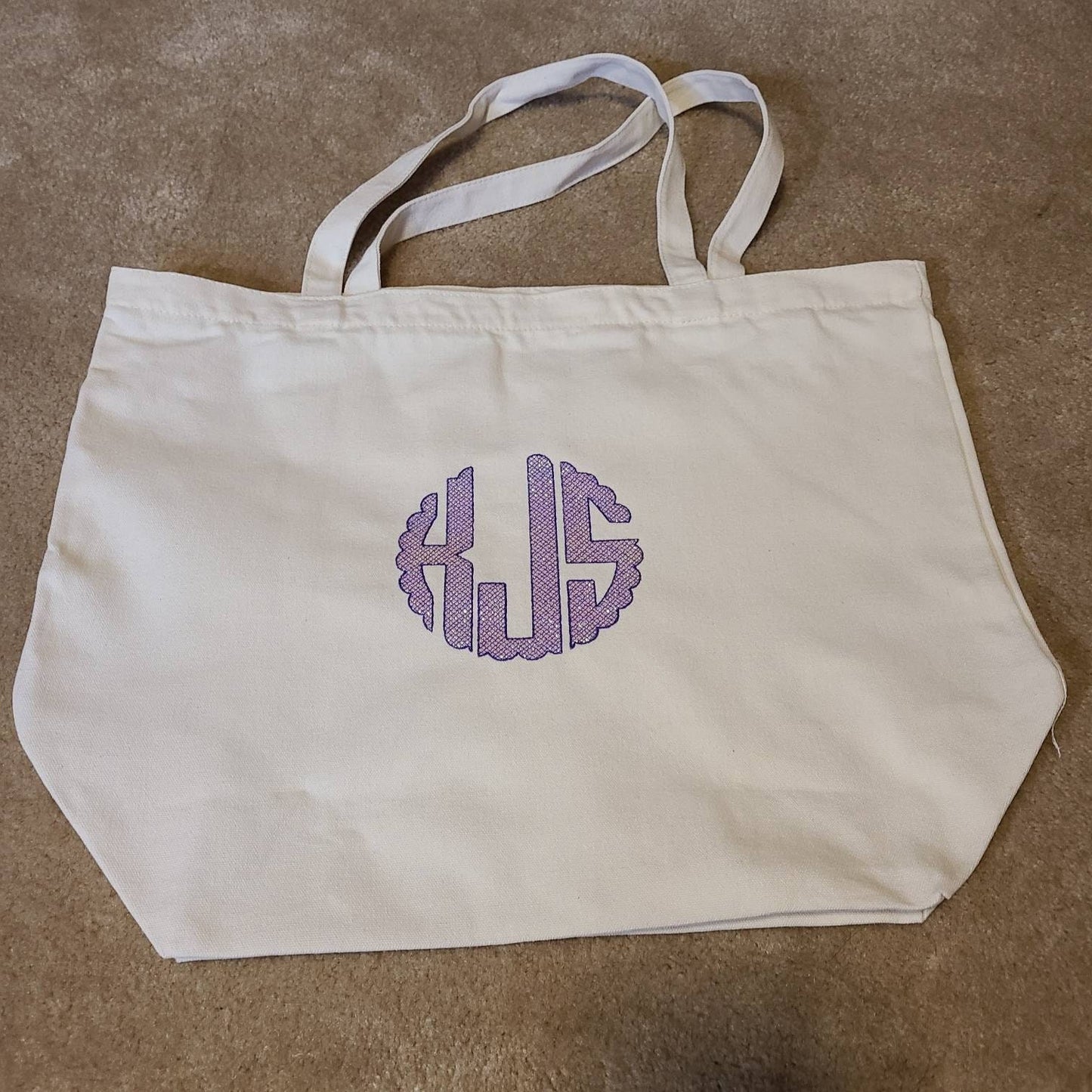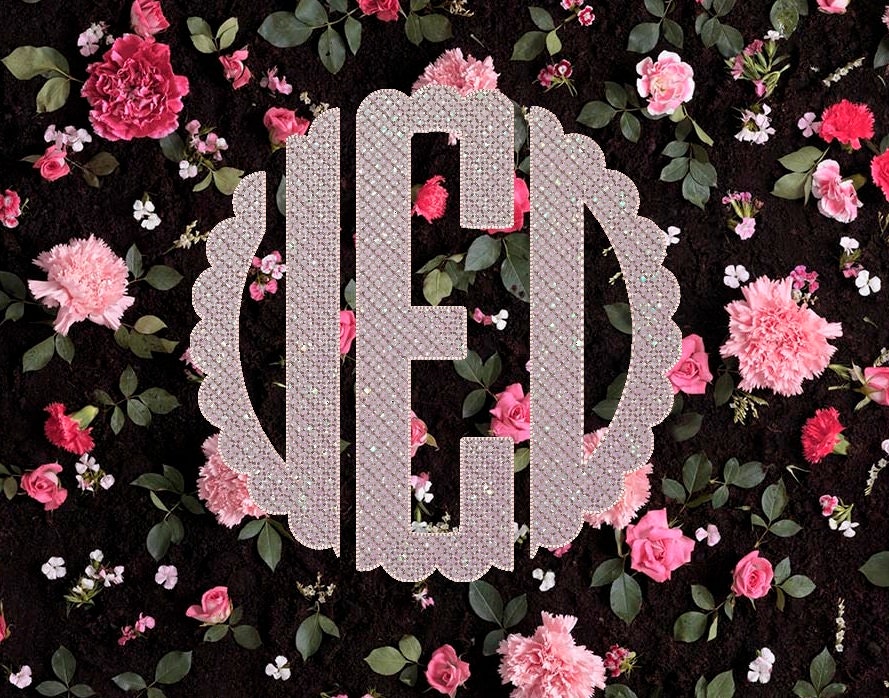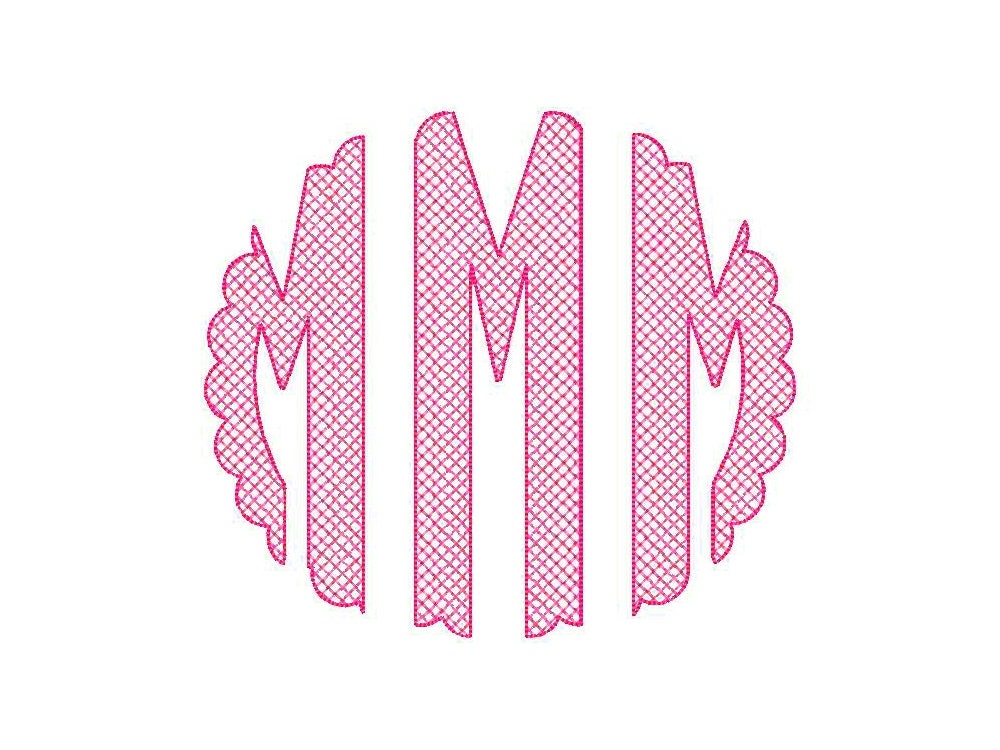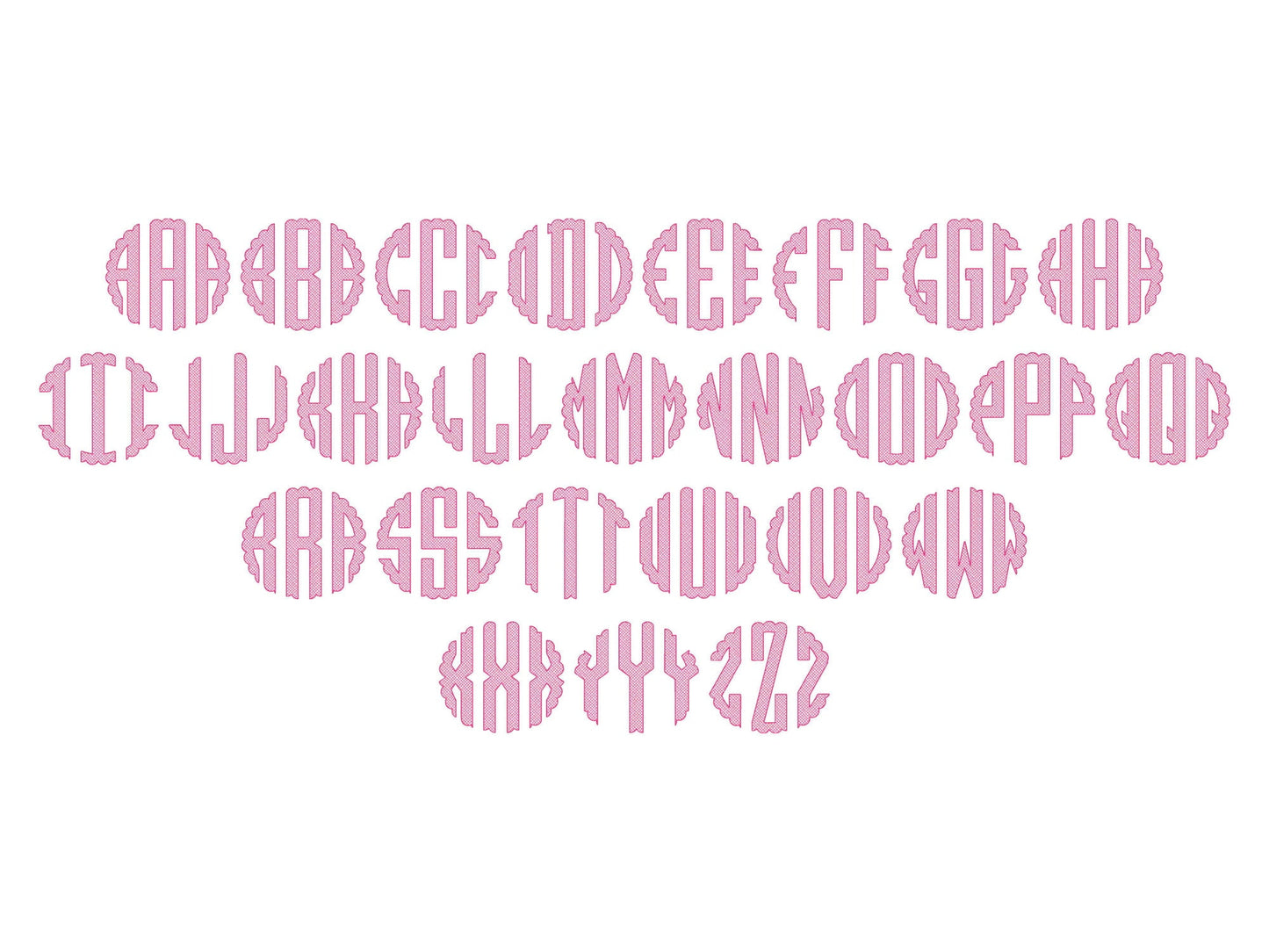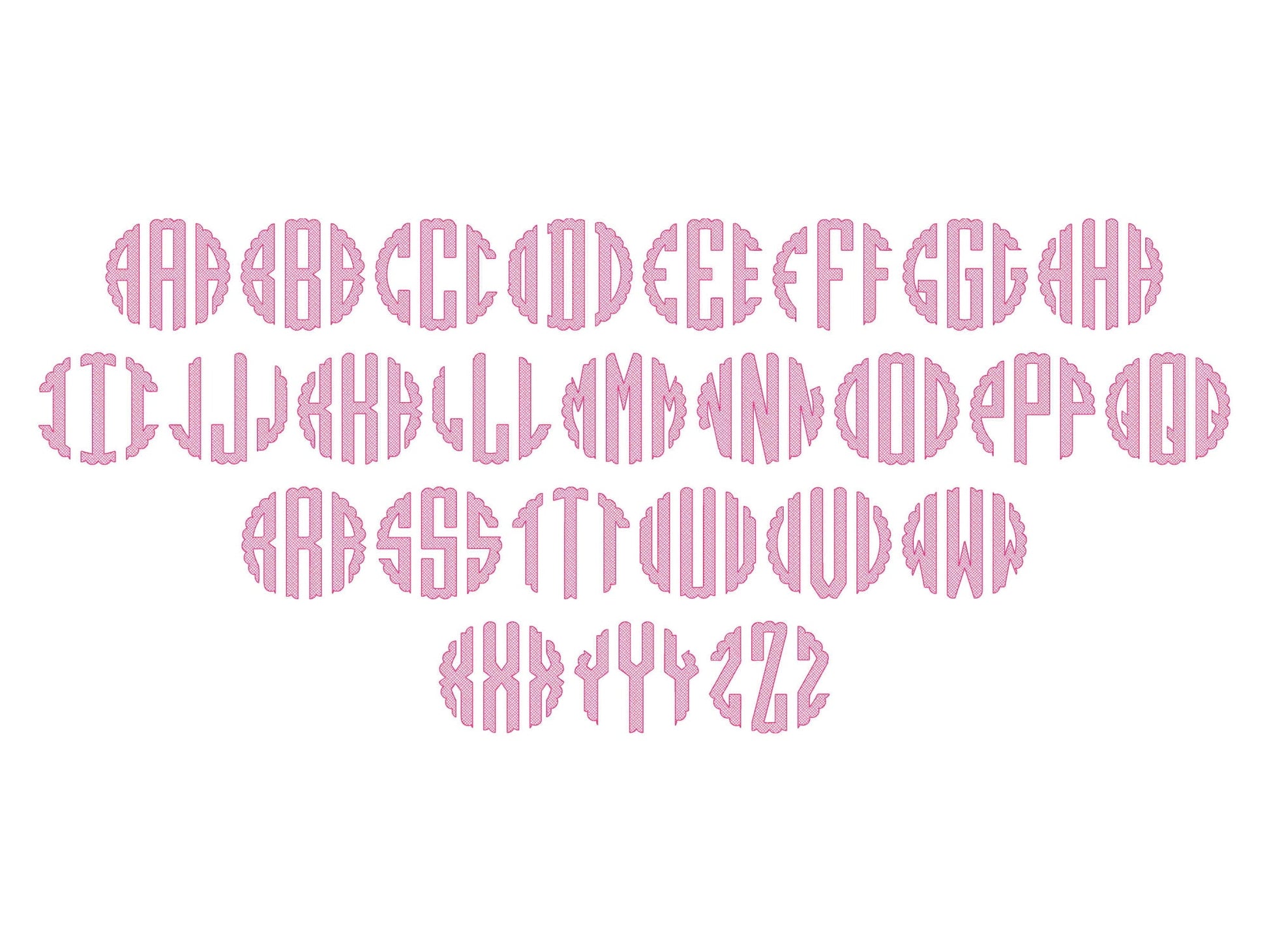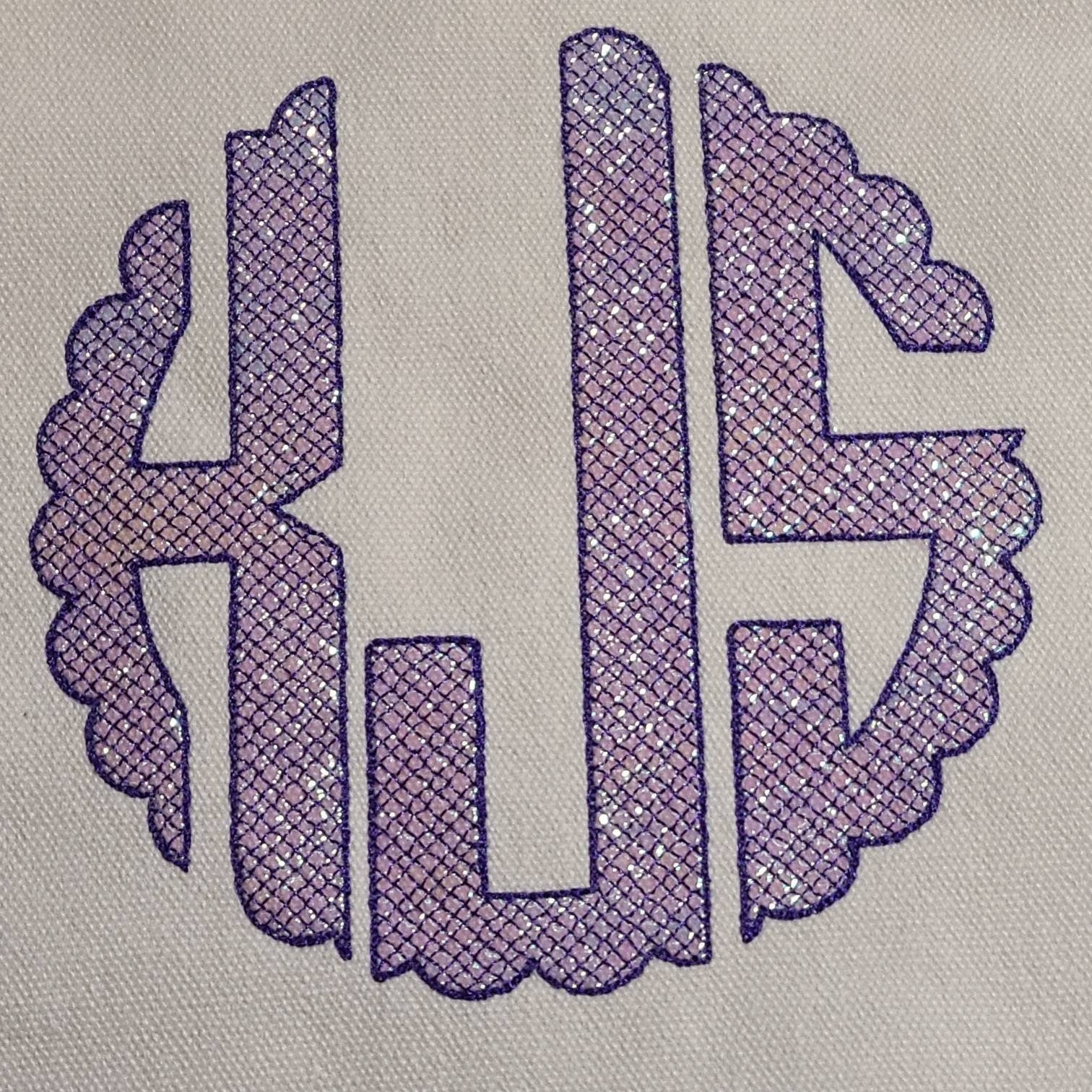
For a fantastic result, you may use Mylar with the design.
Included 78 individual files, light stitch with a checkered pattern.
The checked effect is a part of the design.
Letters:
26 Left
26 Center
26 Right